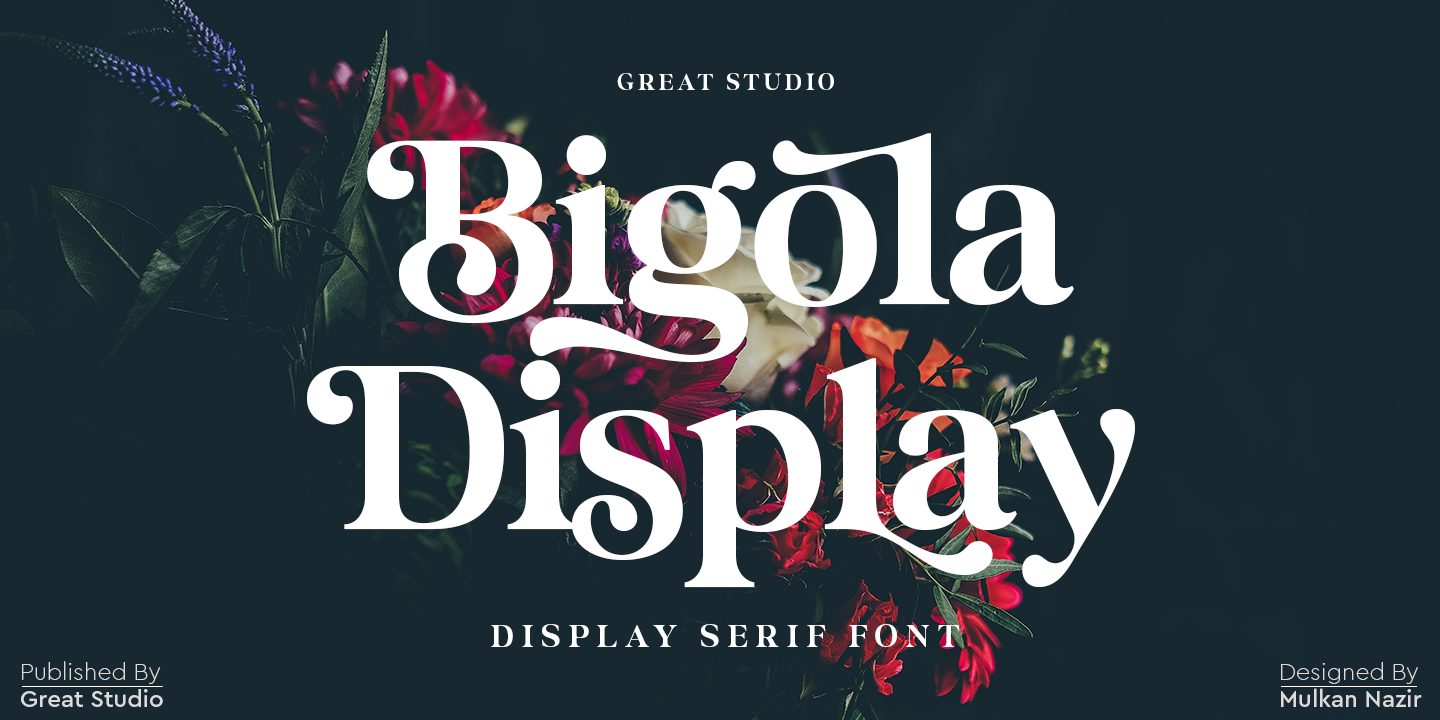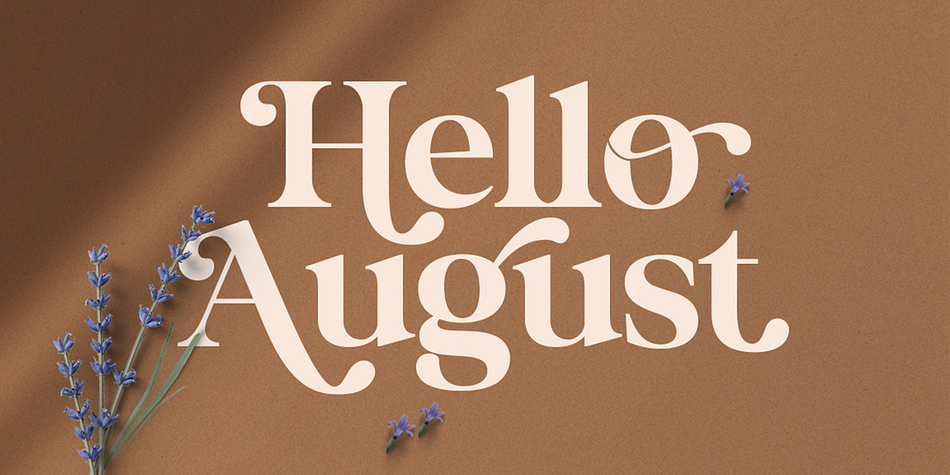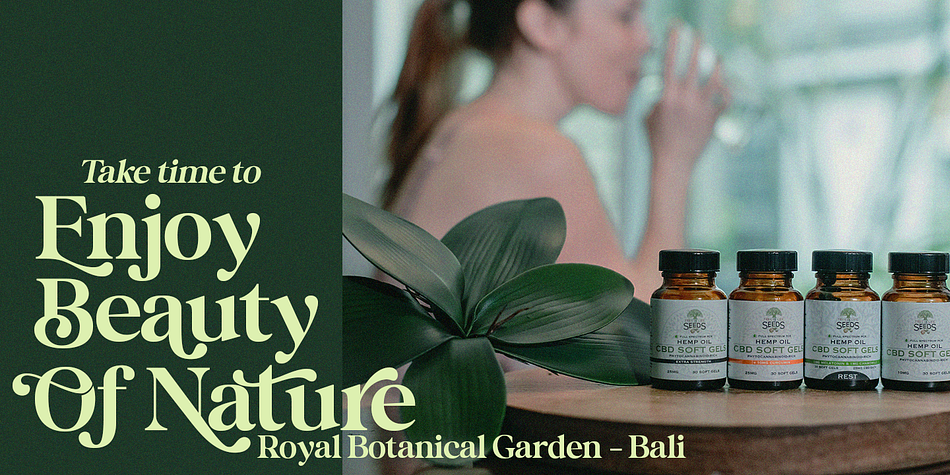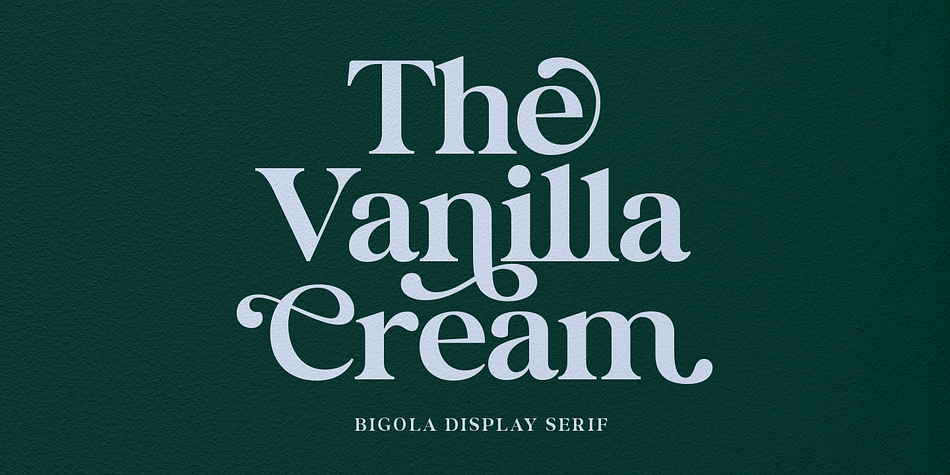
Bigola Display
Bigola Display is a display serif font family. This typeface has three styles and was published by Great Studio.
Bigola Display is a modern vintage serif font packaged in a modern and classy style, complete with access to your OpenType features to access a large selection of alternates letters and ligatures, the choice of letters you like from variations of uppercase and lowercase letters to get a display luxurious and elegant.
Unique, playful and versatile serif family with 14 ligatures and 170 alternates to beautify the design you like. This font is perfect for branding projects, Logo design, Clothing Branding, packaging, magazine headings, advertising, T-shirts, postcards and much more.
Alternates and Ligatures